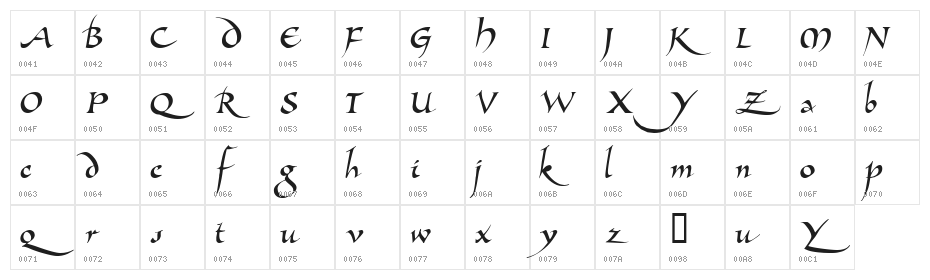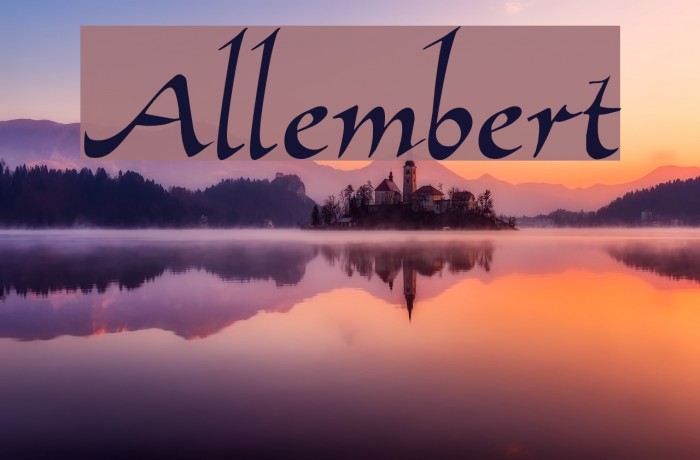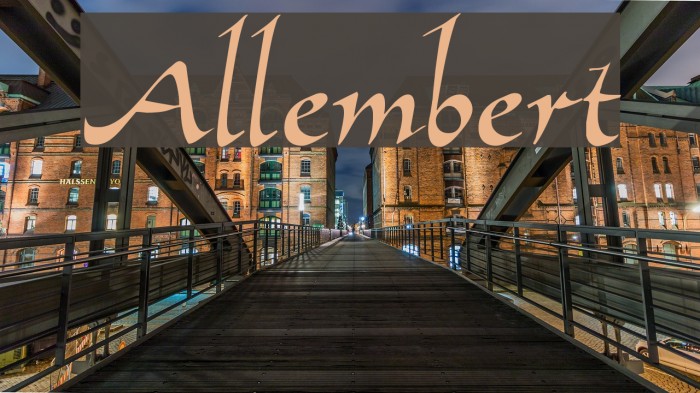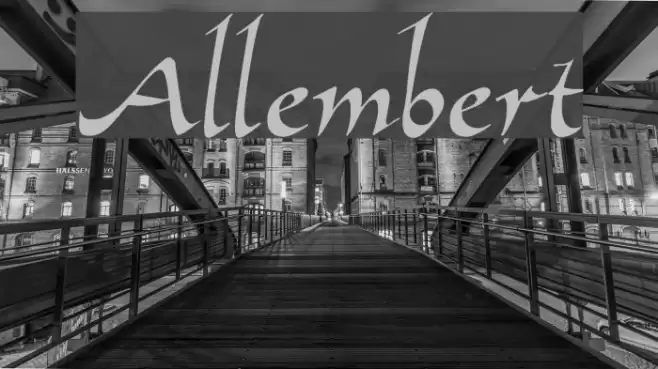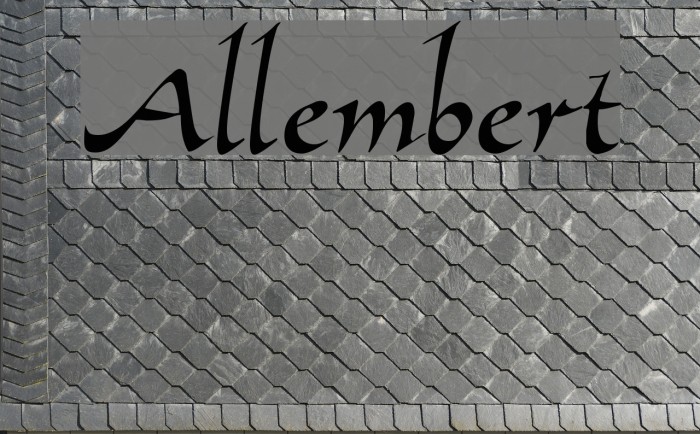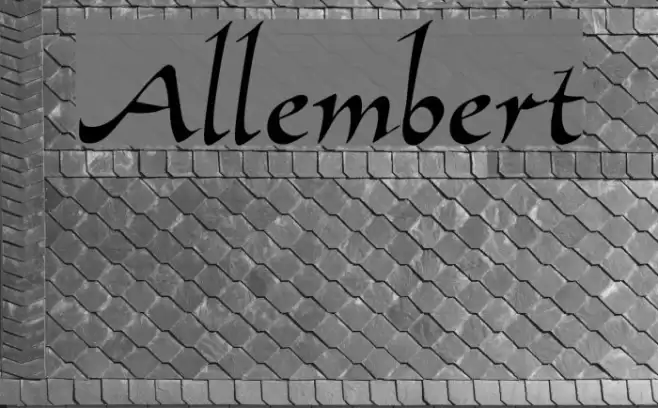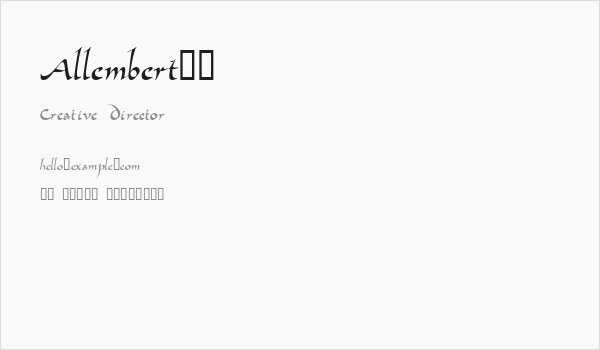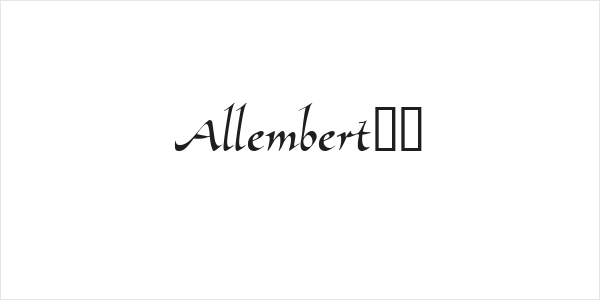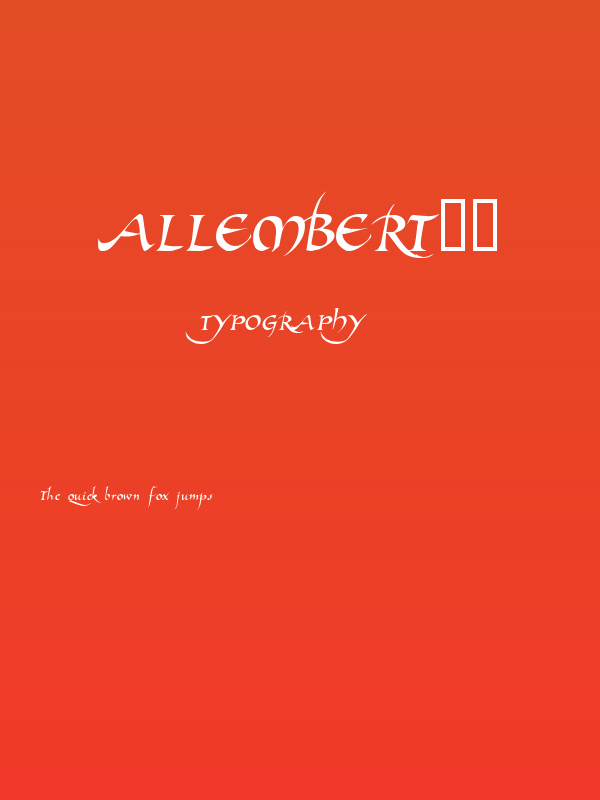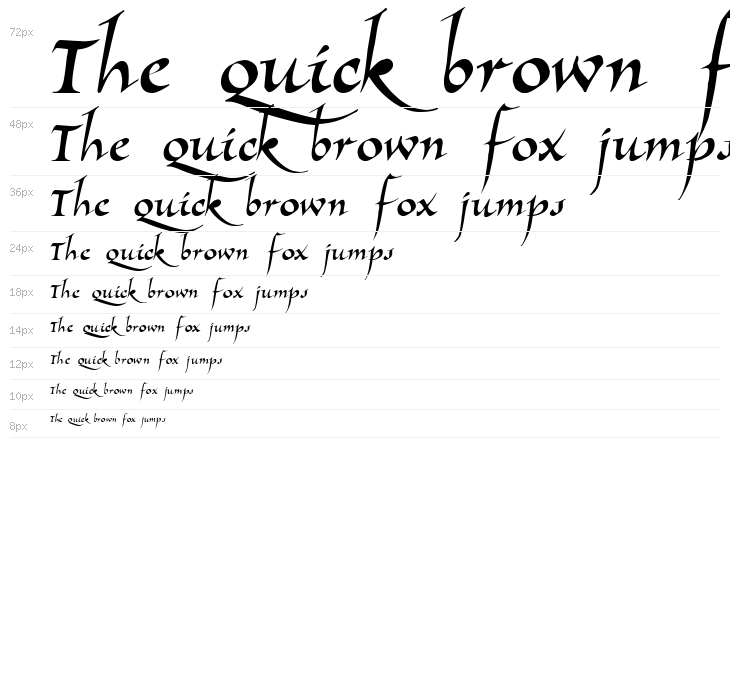
Allembert!" Font
Allembert!" Description
This font features a dramatic and elegant style with sharp, sweeping strokes and a calligraphic flair. The uppercase letters are characterized by their bold, angular lines and pointed serifs, giving them a sense of movement and sophistication. The lowercase letters maintain a similar aesthetic, with elongated ascenders and descenders that add to the font's dynamic appearance. The overall design is reminiscent of traditional calligraphy, yet it incorporates modern elements that make it suitable for contemporary use. The absence of numerals and special characters suggests a focus on artistic expression rather than functional typography.
| Use Case | Logos, Headlines |
| Proposed Projects | Ideal for wedding invitations, luxury branding, and artistic posters. |